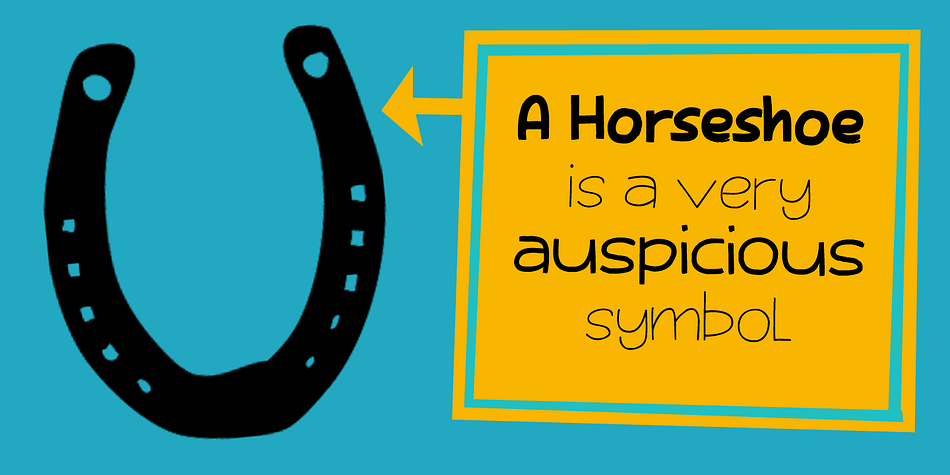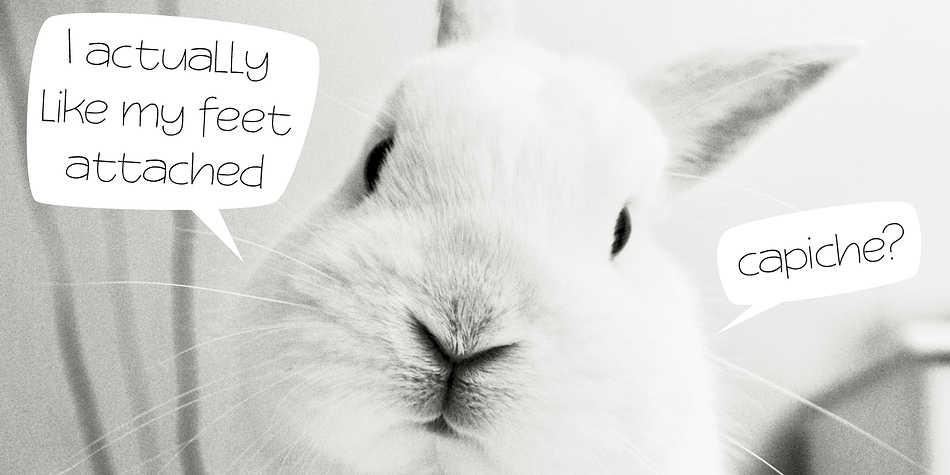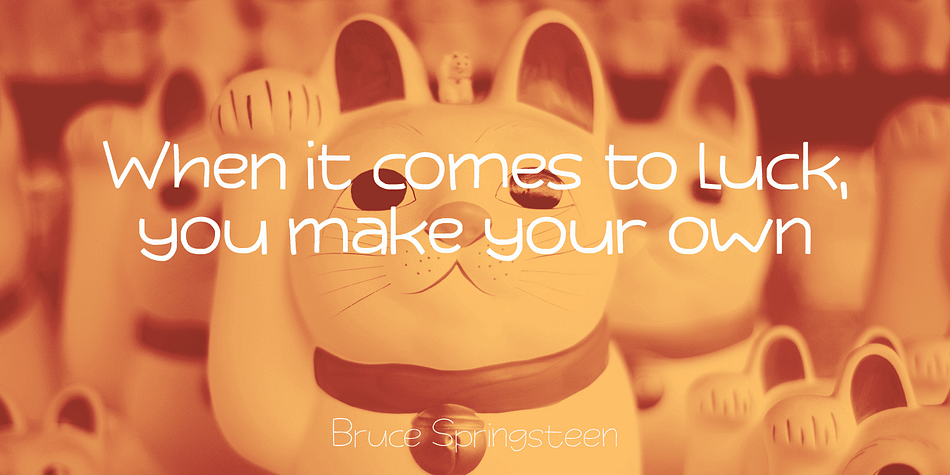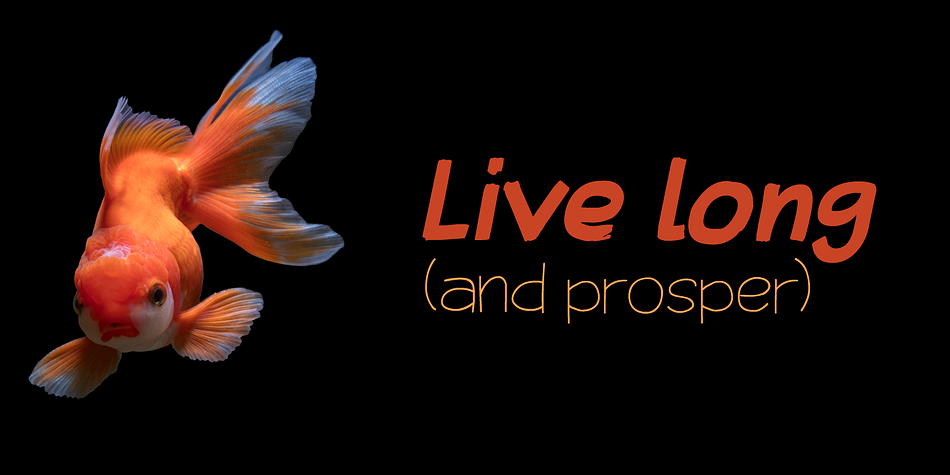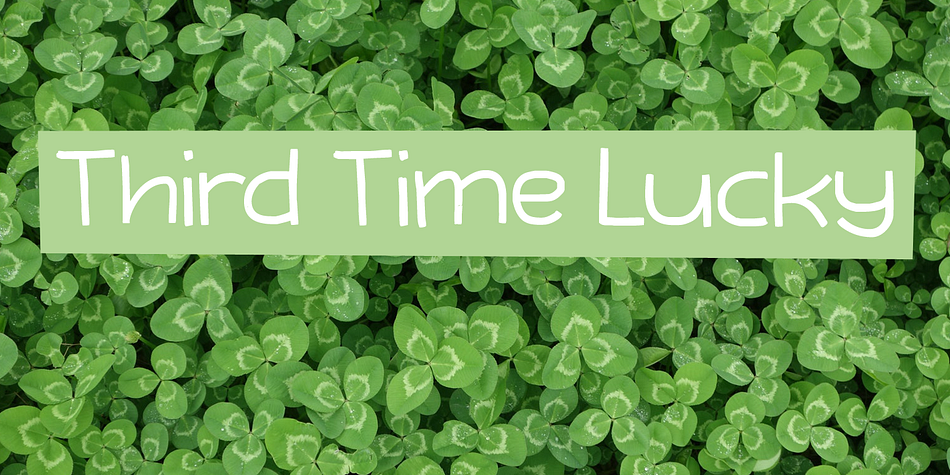
Designed by David Kerkhoff, Third Time Lucky is a hand drawn font family. This typeface has six styles and was published by Hanoded.
Third Time Lucky is a set of three distinct handmade fonts, each with its own italic. Use this wonderful set for your books, your packaging or even your ‘house for sale’ signs.